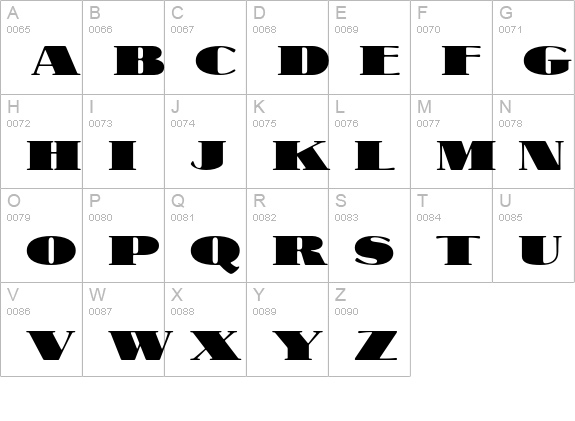
OPTINubianFoundry Font Details
OPTINubianFoundry font is a stunning and versatile typeface that exudes elegance and sophistication. With its unique blend of sharp angles and smooth curves, this font is perfect for a wide range of design projects, from branding to editorial design. Its modern yet timeless style makes it a standout choice for any creative endeavor. What sets OPTINubianFoundry font apart is not only its striking design, but also the fact that it is available for free download at FontsMarket.com. This means that you can elevate your designs with this exceptional font without having to worry about breaking the bank. Whether you're a seasoned designer or just starting out, OPTINubianFoundry font is a must-have addition to your font collection. Download OPTINubianFoundry font today from FontsMarket.com and unleash your creativity with this beautiful and free typeface.